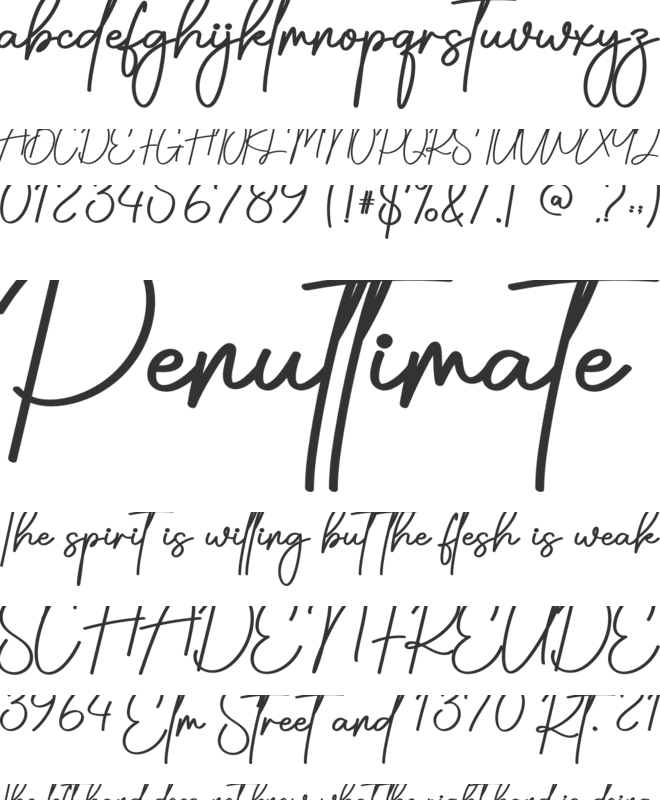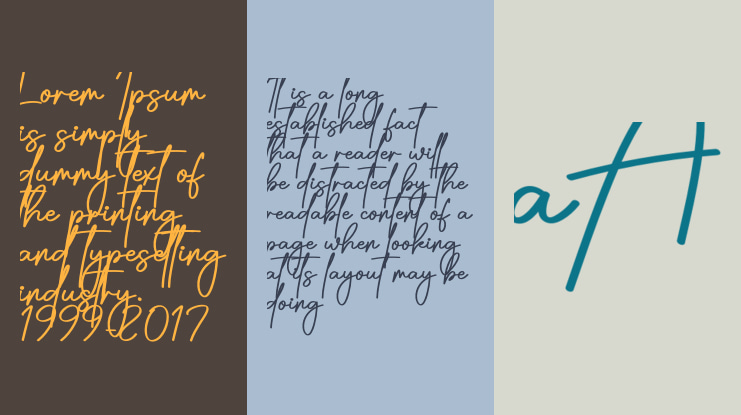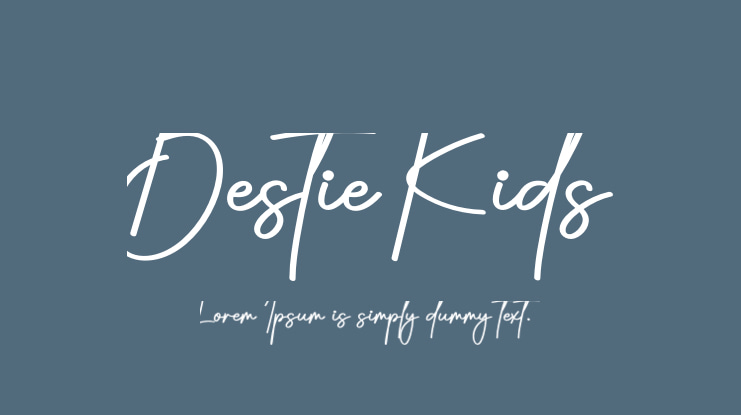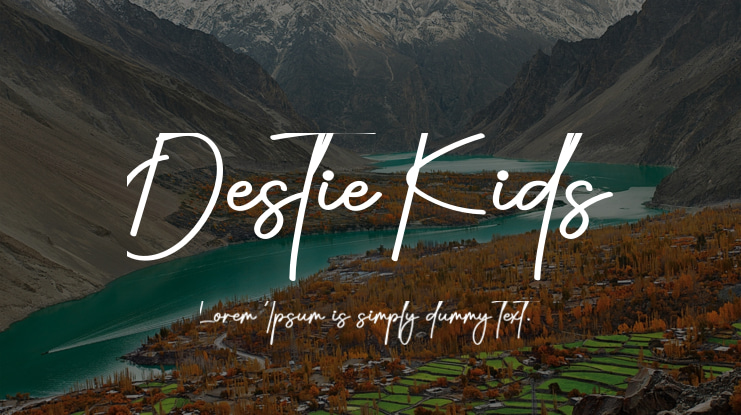
Our special creative products are designed to provide you with an extraordinary experience. The latest style letters are ideal for various applications such as wall displays, wedding invitations, social media post logos, advertisements, product packaging, product designs, labels, photography, watermarks, invitations, stationery, and any project that demands a touch of tasteful handwriting.